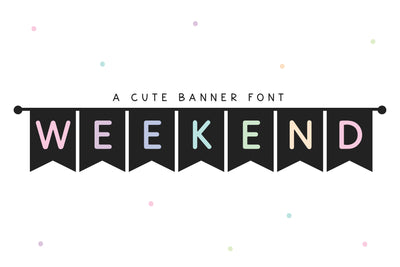
Weekend - Banner Pendant Font
Weekend is a fun banner font in a pendant style!
Weekend is perfect for: cricut crafts, svg files, bulletin boards, greeting cards, procreate, shirts, posters, social media and more!